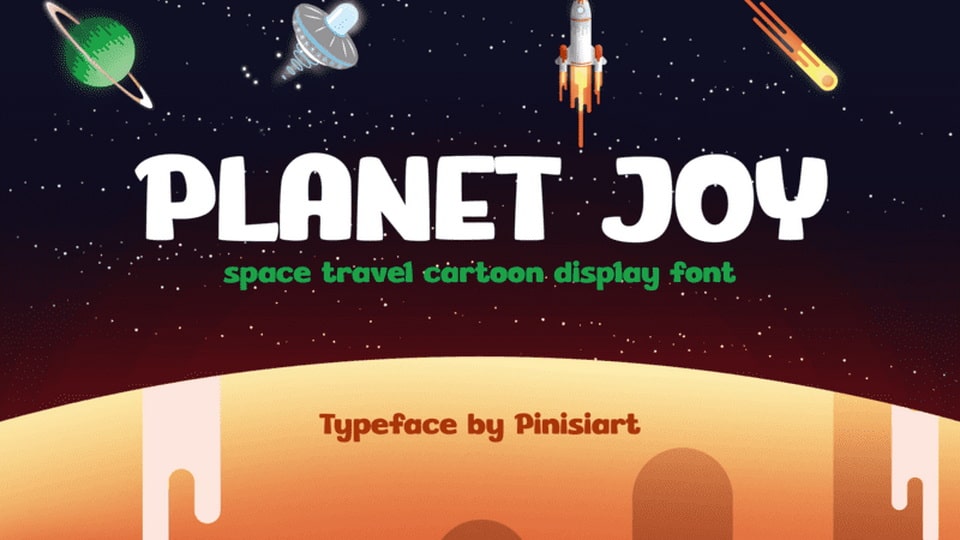
Download Planet Joy font, a cartoon display typeface. Traveling to space is never been this fun. Planet Joy brings future space travel in much fun and encouragement to the young generation.